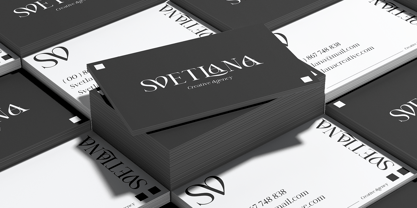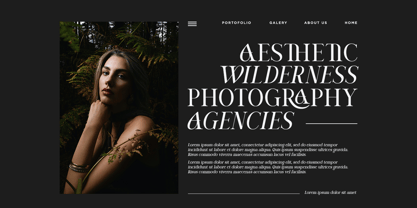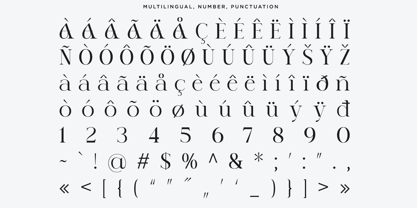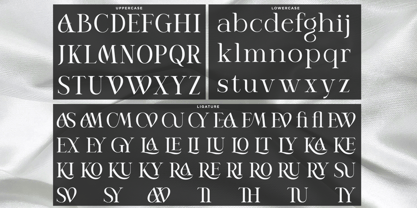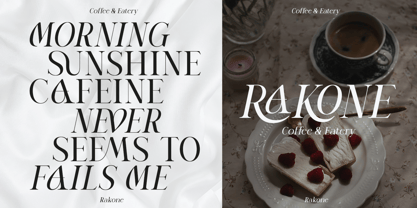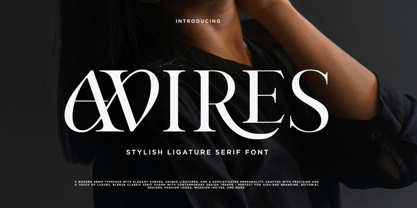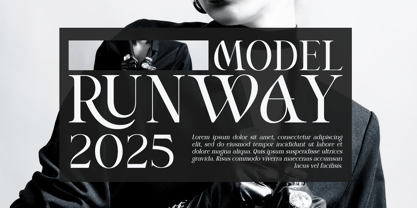
Avires
Die Schriftfamilie Avires wurde von Yogiswhara Dio Prakoso Riadi entworfen und von RagamKata veröffentlicht. Avires enthält 2 Stile und Familienpaketoptionen.
Avires is stylish ligature serif font with sophisticated and high-fashion serif typeface designed to command attention and elevate any creative project. With its elegant curves, sharp serifs, and luxurious ligature combinations, Avires brings a perfect balance of classic charm and contemporary flair. Perfect for branding, headline, title, logo, website, business card, etc. What you get : - Avires Regular - Avires Italic - Multilingual Support - Styllistic Ligature Thank you and Have a nice Day